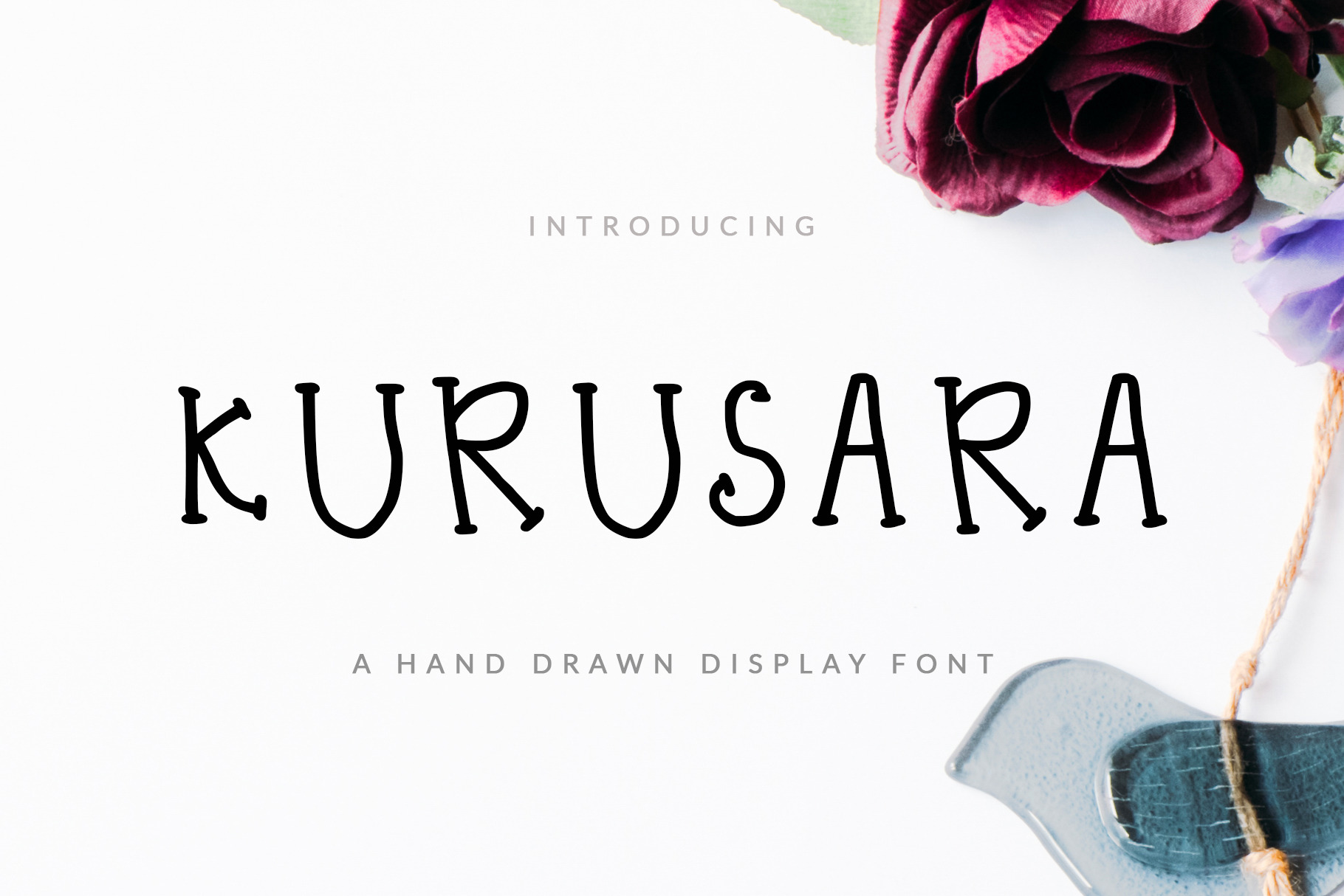
Kurussara Font Display & Childish
Sans serif hand-drawn display font called KURUSSARA was designed for modern, classic, childish, unique and other style also fit for Header website, general use for header text, kids stories, books, poems and other long text